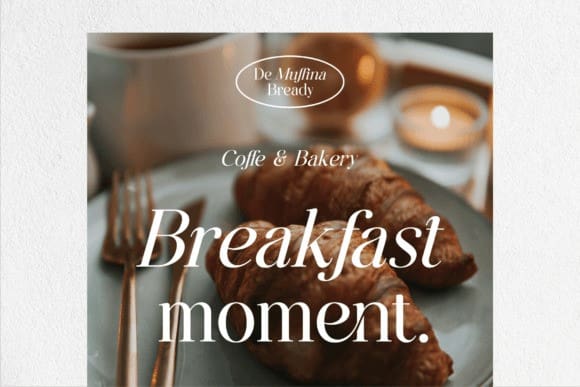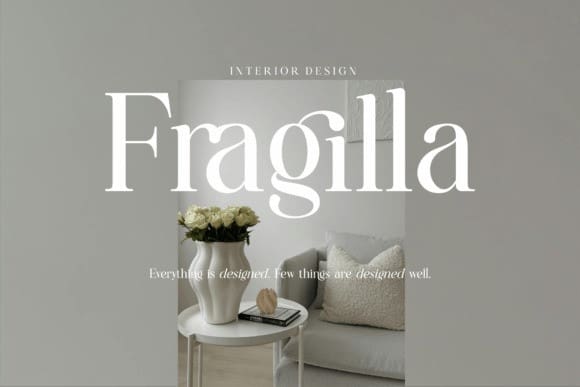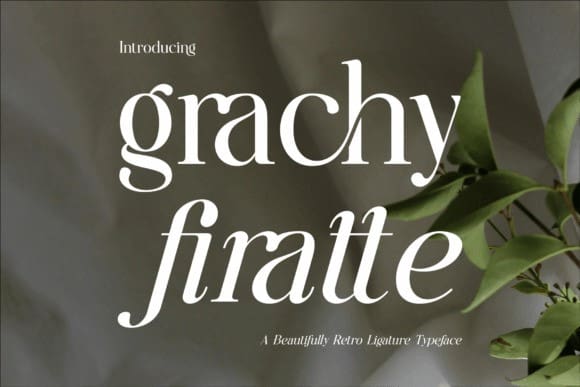
Grachy Firatte Font
Grachy Firatte Font is inspired by the famous minimalist logo perfect for the purposes of designing templates, brochures, videos, advertising branding, logos, invitation, layout design, elegant crafting, beauty design and more.